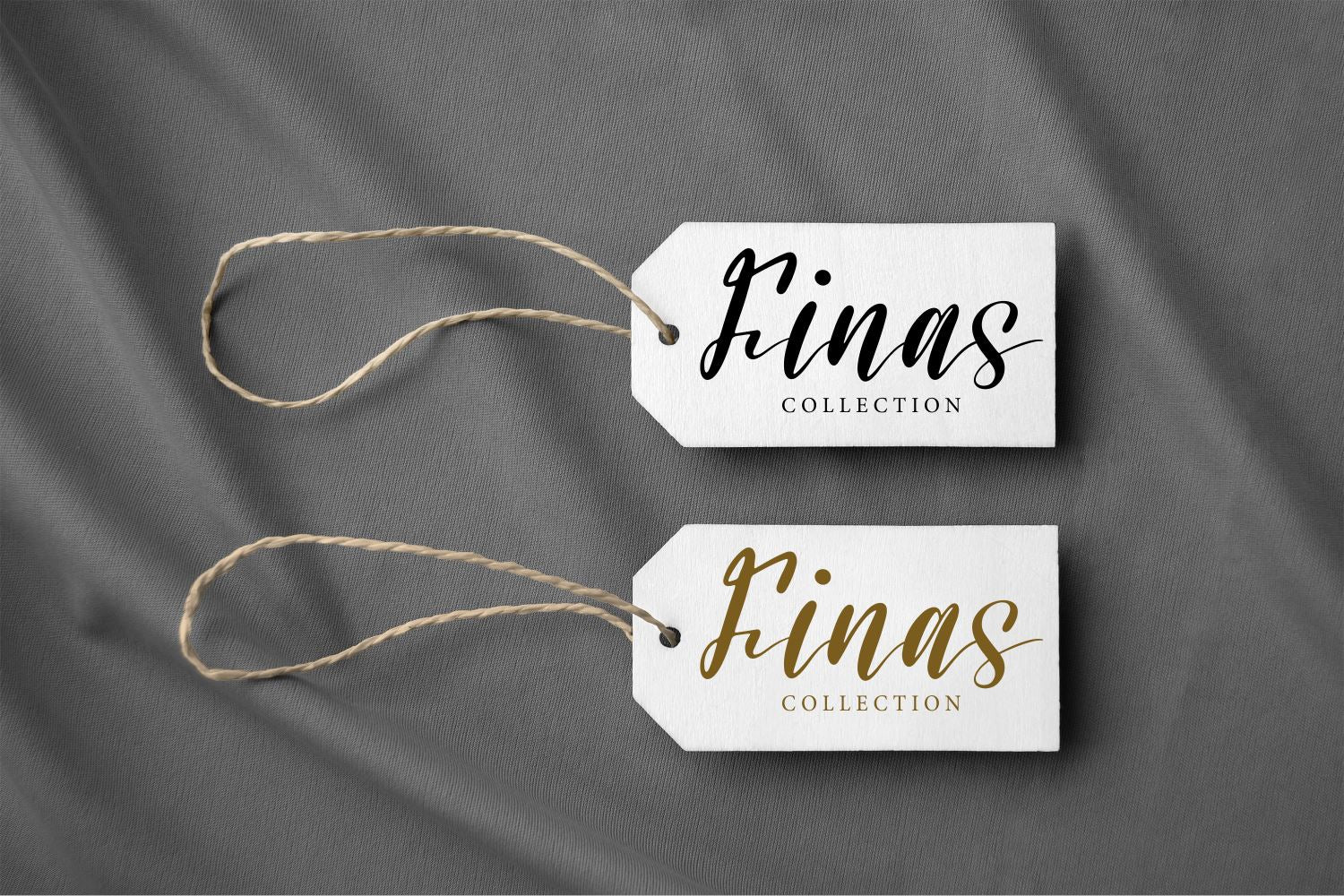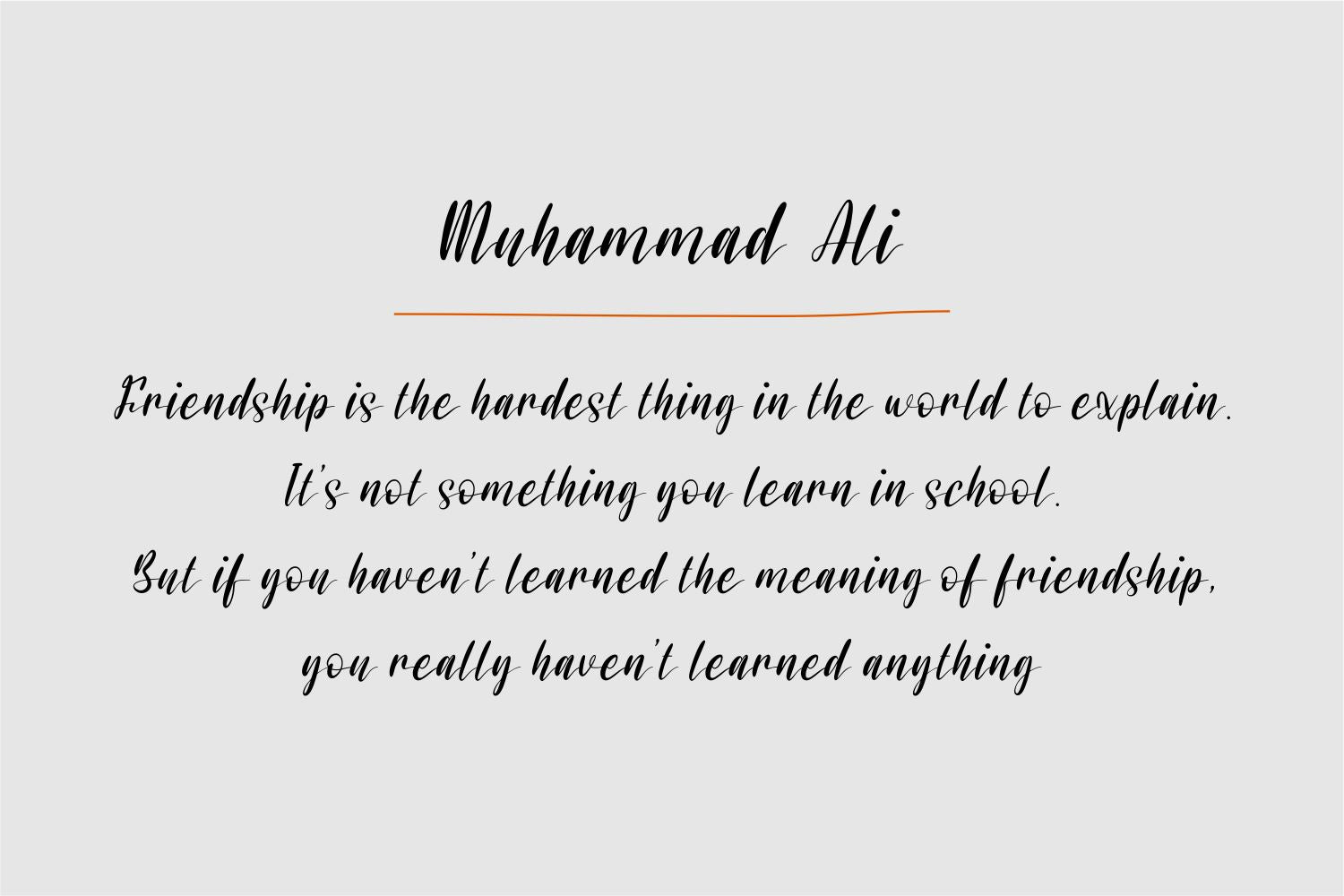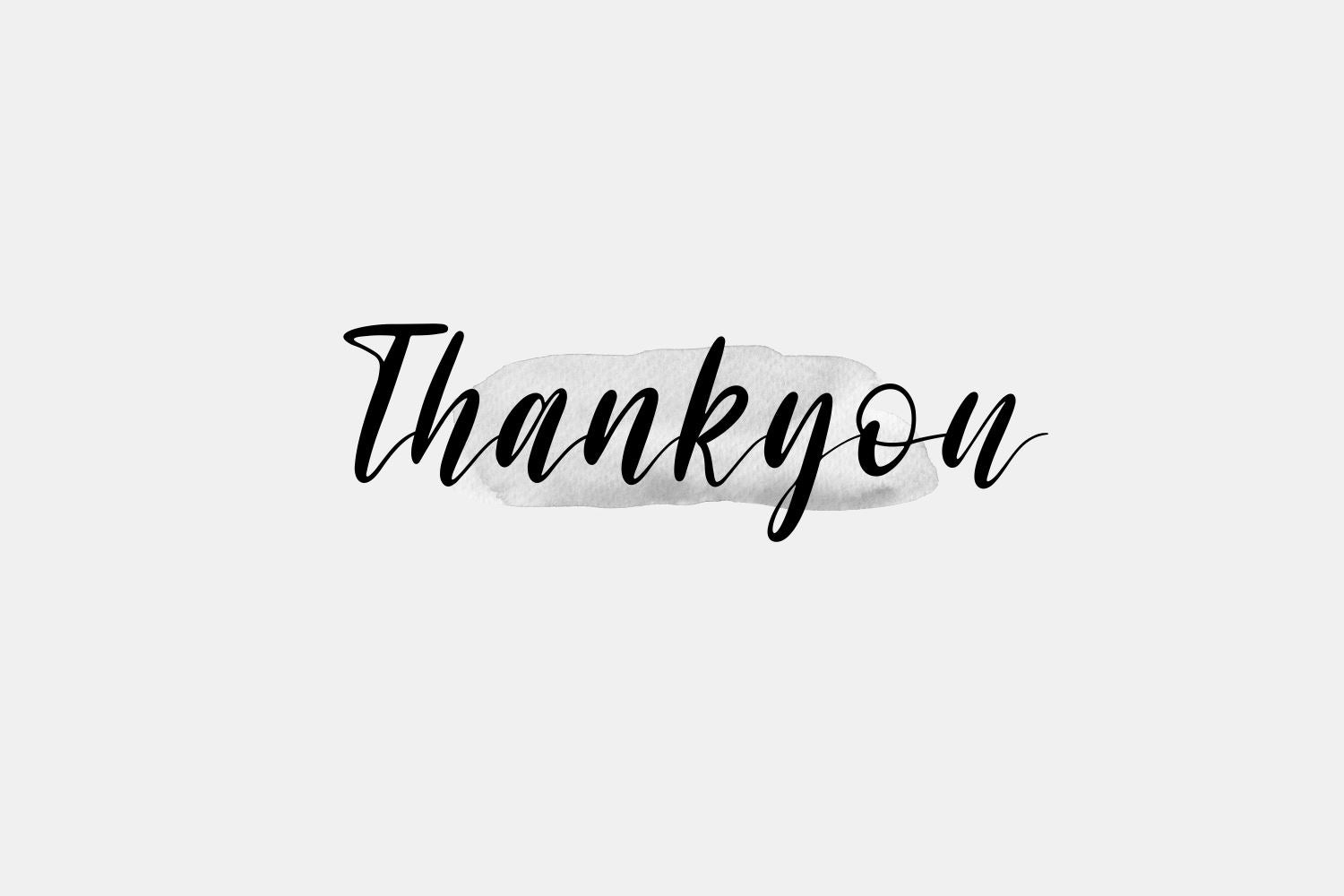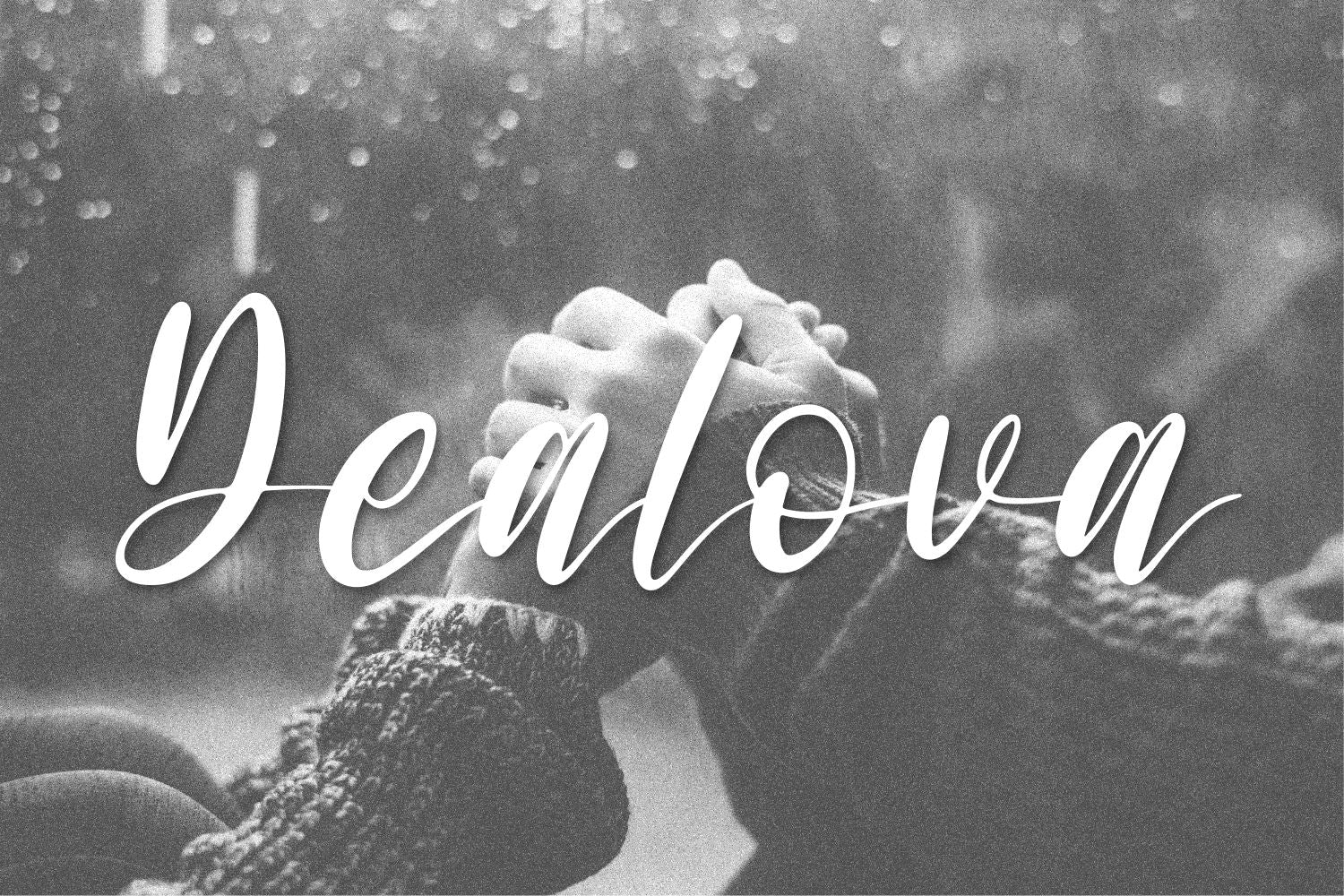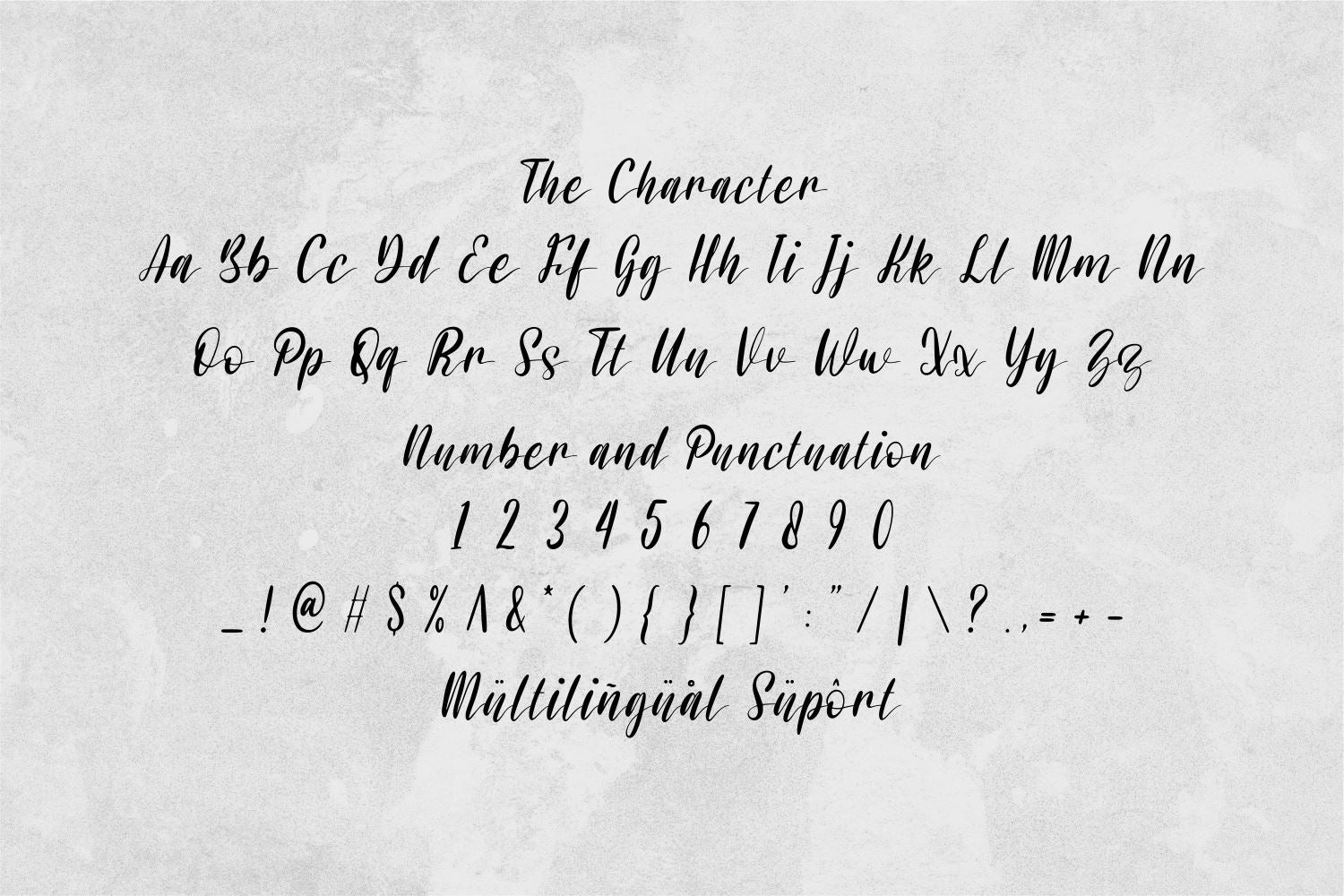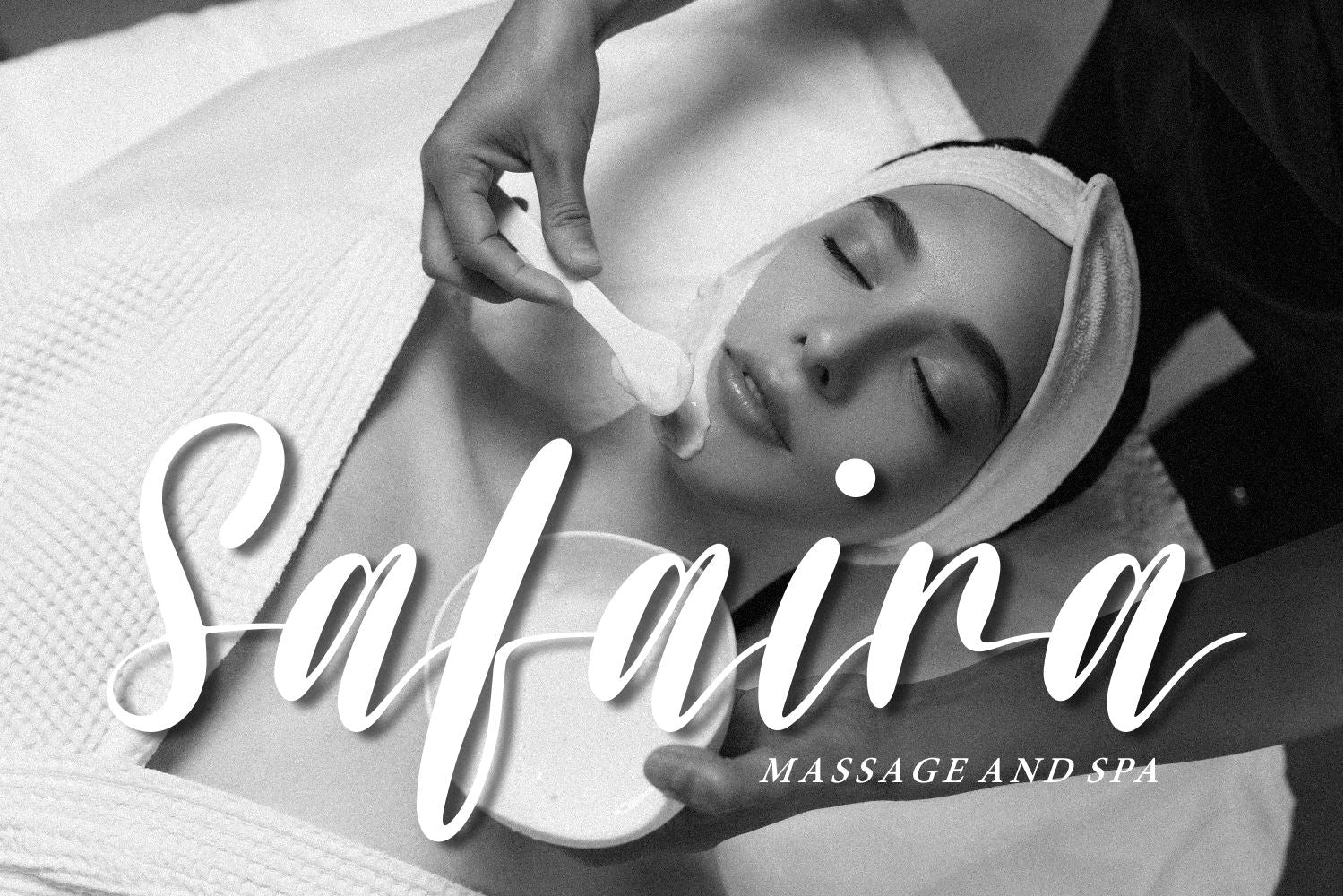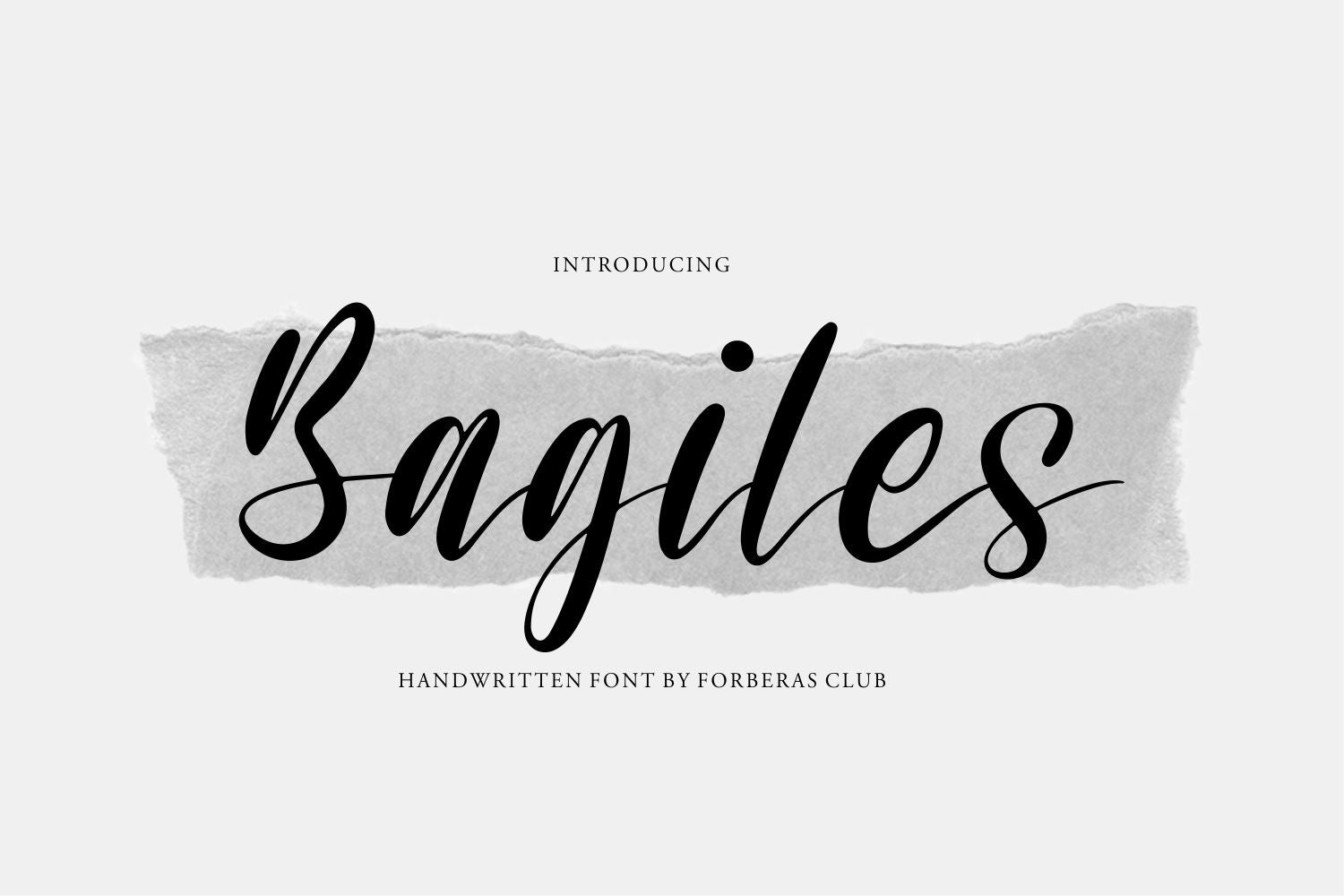
Bagiles
Introducing Bagiles Font by Forberas Club Bagiles is a Modern Handwritten Font. Bagiles is perfect for book cover, product packaging, branding project, megazine, social media, kisd book fonts, or just used to express words above the background. This font includes TTF and OTF, This font also multilingual support.